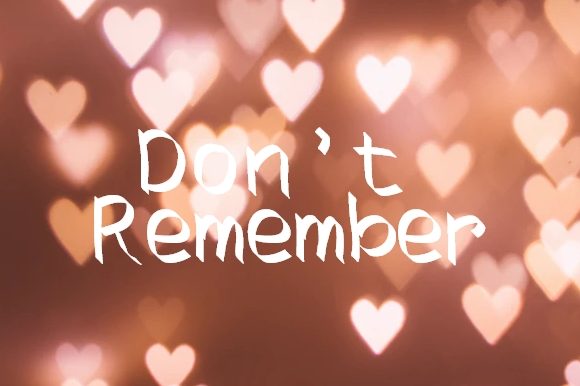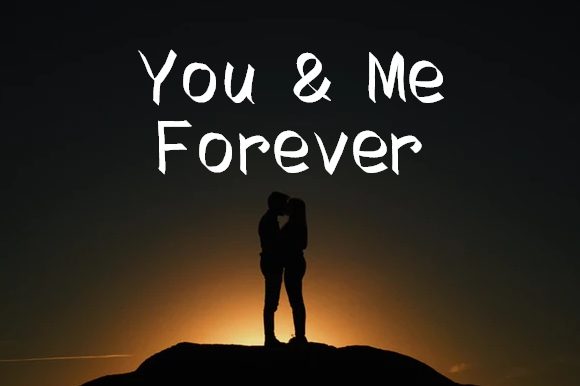
The Adalova Font: A Friendly and Quirky Companion for Your Creative Projects
I still remember the time I was working on a branding project for a small craft business, and I just couldn’t find the right font to capture their playful yet professional vibe. That was until I stumbled upon the Adalova font. With its incredibly friendly feel and clean, quirky design, it instantly resonated with the client’s aesthetic. In this article, I’ll share my experience with Adalova, its features, and how to make the most of it in your designs.
An Honest Review of Adalova Font
What I Love About Adalova ✨
- ✅ The friendly and approachable feel that makes it perfect for crafty DIY projects and small business branding
- ✅ Clean and legible design, making it easy to read in various contexts
- ✅ Quirky and playful elements that add a touch of personality to any design
- ✅ Highly versatile and adaptable to different styles and themes
- ⚠️ Some characters may appear a bit narrow or cramped at smaller font sizes
- ⚠️ Limited availability of language support, mainly focused on English and some European languages
The Story Behind Adalova Font
Adalova was designed by a talented type designer who aimed to create a font that would bring a sense of warmth and approachability to any design. Inspired by the beauty of handwritten letters and the playfulness of digital fonts, Adalova was crafted to be a versatile and friendly companion for creative projects.
| Font Name | Adalova Font |
| Author | Rizky Creative |
| What is the best use for Adalova font? | Adalova is perfect for logos, branding, social media, and crafty DIY projects that require a friendly and playful touch. |
| Is Adalova suitable for body text? | While Adalova is legible, it’s best suited for headlines, titles, and short paragraphs. For longer body text, consider a more traditional serif or sans-serif font. |
| Is Adalova available in multiple languages? | Adalova mainly supports English and some European languages. If you need support for other languages, consider checking the font’s language support or contacting the designer. |